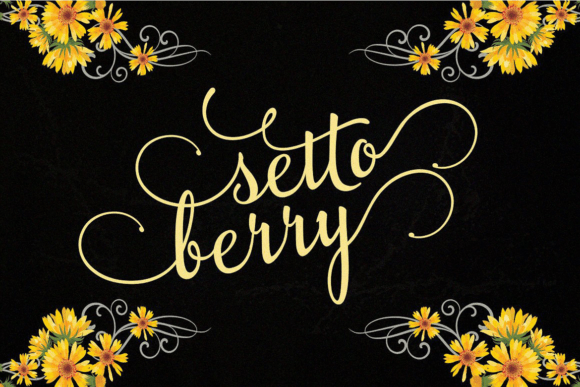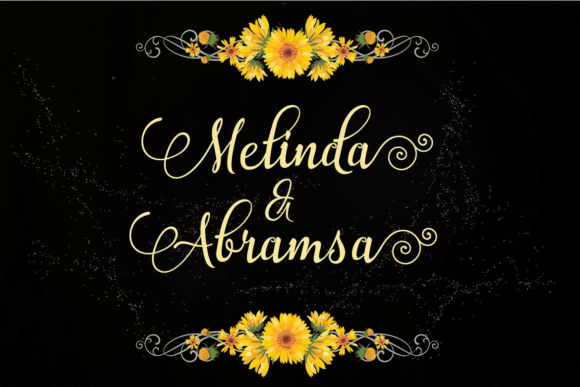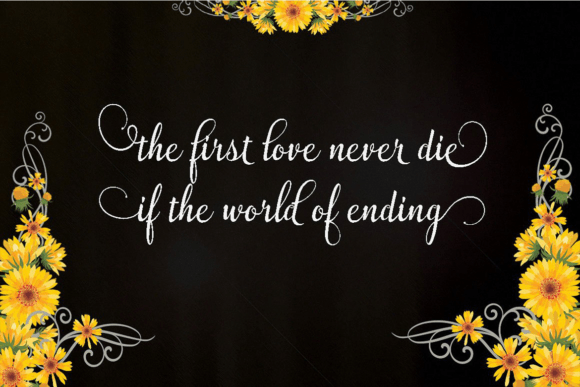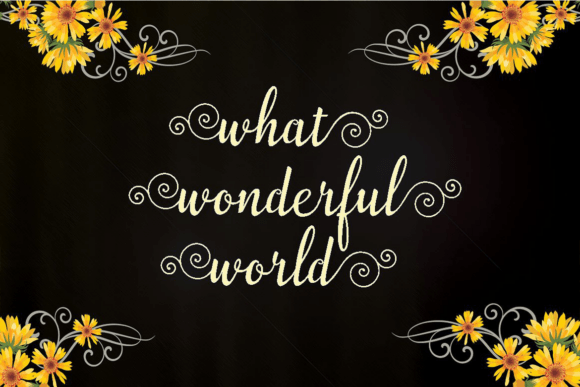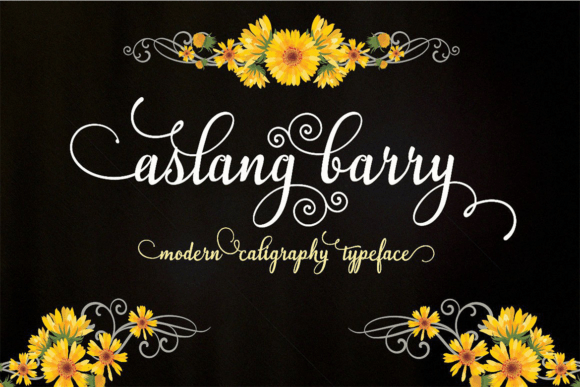
Unleashing Elegance: The Aslang Barry Font
As designers, we’ve all been there – staring at a blank canvas, struggling to bring our vision to life. But what if we told you there’s a secret to elevating your elegant designs and making them truly unforgettable? Enter the Aslang Barry Font, a modern calligraphy typeface that exudes sophistication and refinement.
With its exquisite, swirling flourishes and rhythmic flow, the Aslang Barry typeface is the definitive choice for high-end wedding invitations, luxury brand logos, and floral-themed editorial layouts. Whether you’re crafting grand event signage or romantic greeting cards, this font is designed to captivate and leave a lasting impression. As a designer, you’ll appreciate the versatility and timelessness of the Aslang Barry Font, making it a valuable addition to your creative toolkit.
Aslang Barry Font Key Features
- Font Family: Aslang Barry
- Unique Characteristics: Unique blend of modern and traditional design elements, with a distinctive flair for the dramatic
Designer Review: Aslang Barry Font
I recently had the chance to work with the Aslang Barry font, and I must say, it’s an interesting addition to any designer’s toolkit. ✨ One of the things I appreciate about this font is its unique, handwritten feel. It’s perfect for adding a personal touch to invitations, greeting cards, or any other project where you want to convey a sense of warmth and personality.
Another strength of the Aslang Barry font is its versatility. ✨ It comes in multiple weights, from light to bold, which makes it easy to adapt to different design contexts. Additionally, the font is highly legible, even at smaller sizes, which is a must-have for any font.
While the Aslang Barry font has its strengths, there are some limitations to consider: ⚠️ The font may not be suitable for formal or professional designs, as its handwritten feel can come across as informal. Additionally, the font’s quirks and imperfections can be distracting in some cases, especially when used in large blocks of text.
Overall, I think the Aslang Barry font is a great choice for designers who want to add a touch of personality to their projects. While it may not be suitable for every design context, it’s a versatile and highly legible font that’s perfect for projects where you want to convey a sense of warmth and approachability.
- Unique, handwritten feel
- Multiple weights (light to bold)
- Highly legible, even at smaller sizes
- Perfect for invitations, greeting cards, and other personal projects
The Great Vibes Font is a modern, elegant script font perfect for creating a sophisticated and luxurious look. It is ideal for use in branding, advertising, and editorial design. Great Vibes Font is more refined and sophisticated compared to Aslang Barry Font, which is more casual and playful. Use Great Vibes Font when you want to convey a sense of high-end quality and sophistication.
Carolyna Pro Font is a beautiful, elegant script font that is perfect for creating a luxurious and high-end look. It is ideal for use in branding, advertising, and editorial design. Carolyna Pro Font is more refined and sophisticated compared to Aslang Barry Font, which is more casual and playful. Use Carolyna Pro Font when you want to convey a sense of luxury and sophistication.